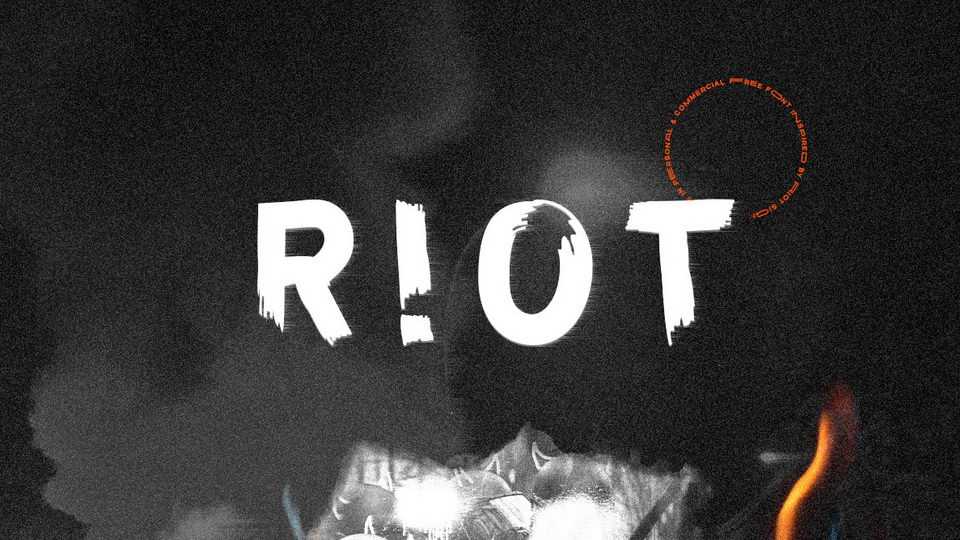
Download Riot font, a bold brush typeface inspired by riot signs made around the world, and collecting letters from different riot signs. Riot is a best choice for posters, headlines, t-shirt prints and other loud messages in these challenging times .